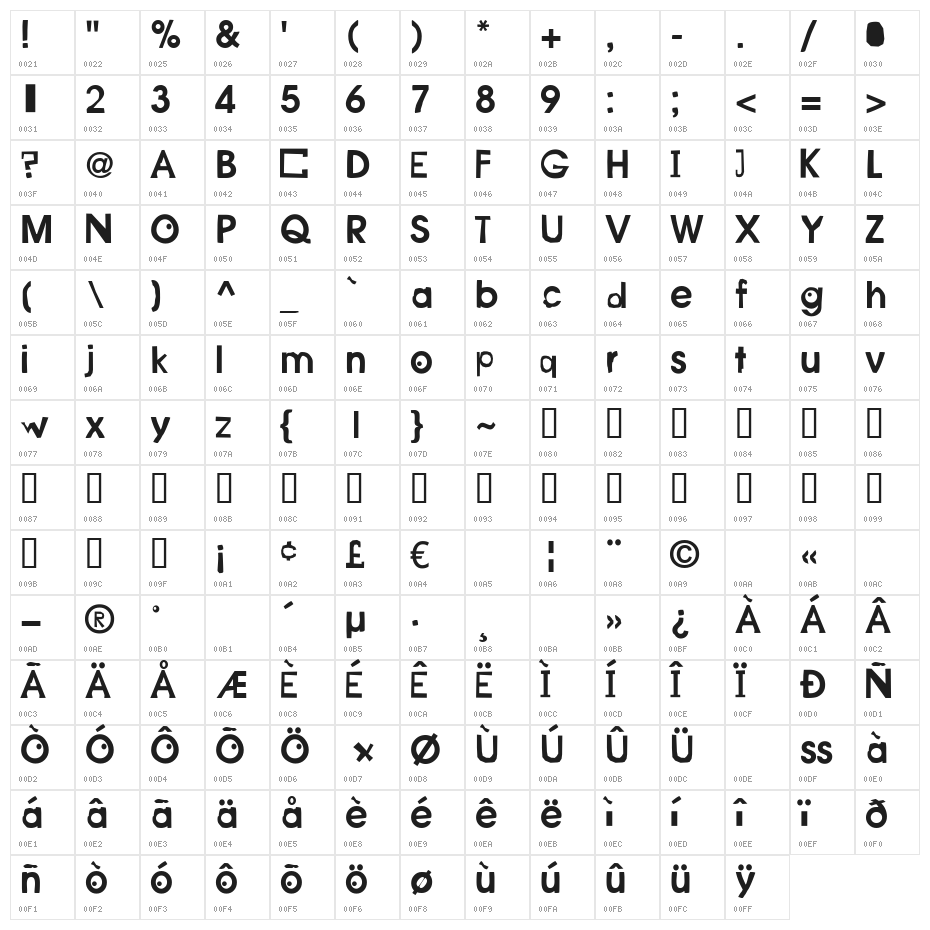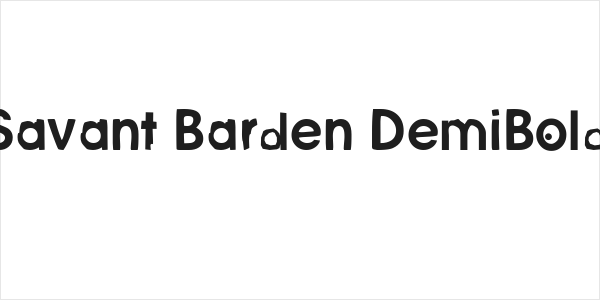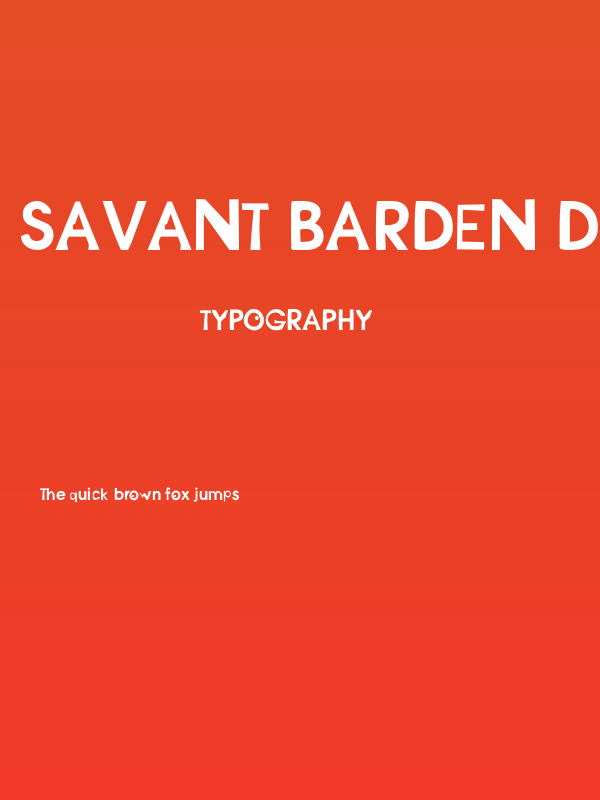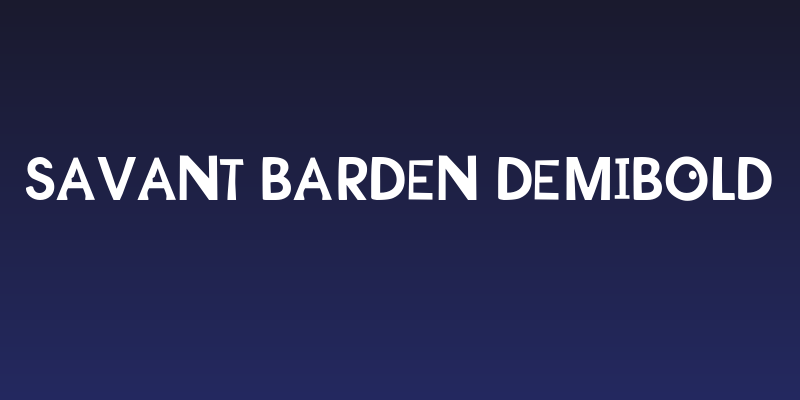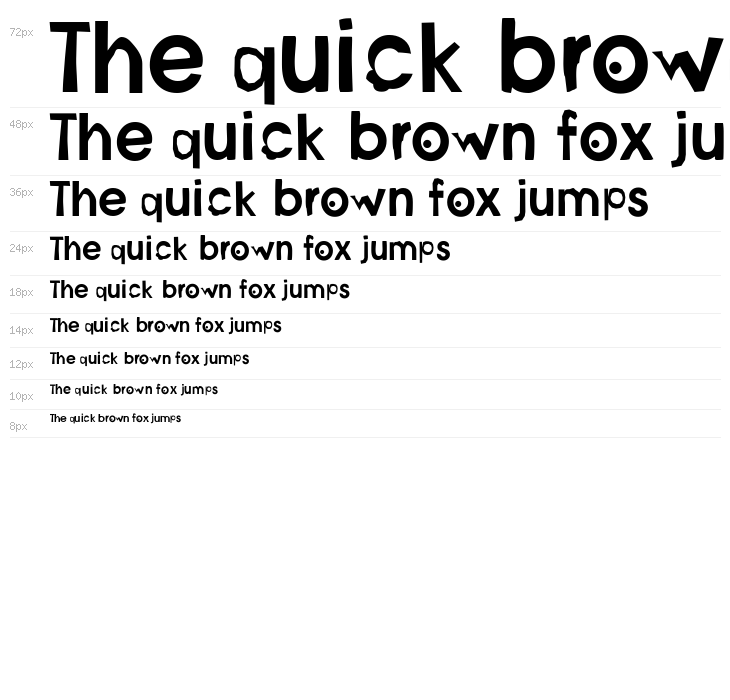
Savant Barden DemiBold Font
Savant Barden DemiBold Description
This font features a bold and geometric style with distinct, block-like characters. The uppercase letters are characterized by strong, angular lines and unique cutouts, giving them a modern and edgy appearance. The lowercase letters maintain a similar geometric structure, with some characters incorporating rounded elements that add a touch of softness to the overall design. The numerals are bold and consistent with the font's geometric theme, ensuring readability and visual impact. Special characters are creatively designed, maintaining the font's distinctive style. This font is ideal for projects that require a contemporary and striking visual presence.